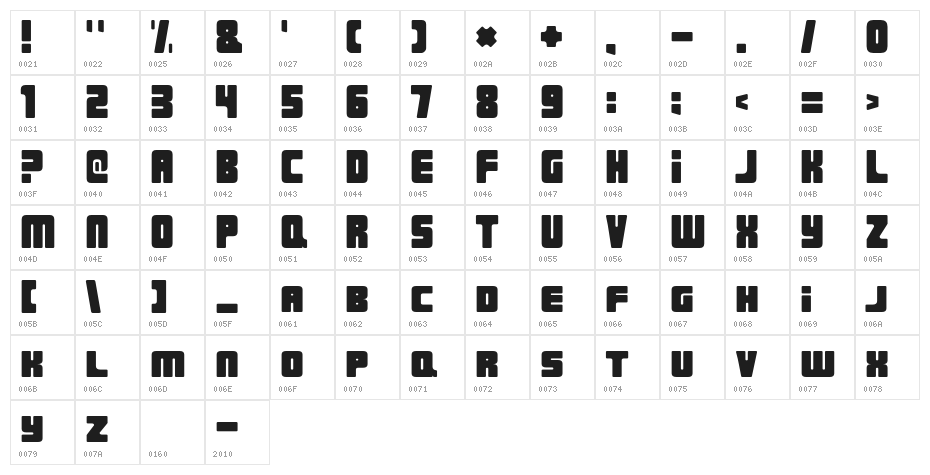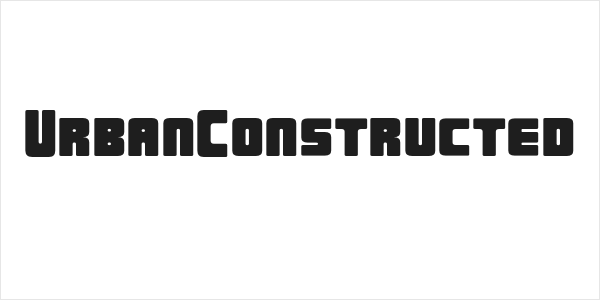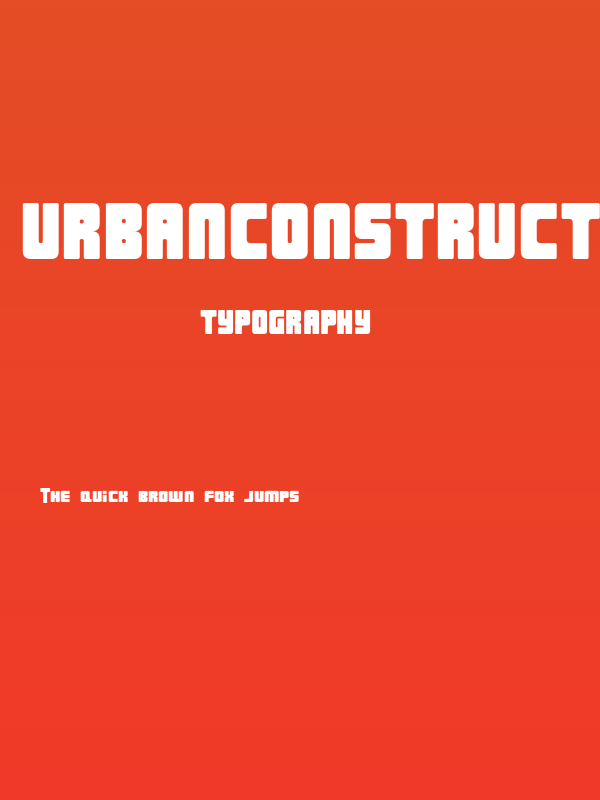
UrbanConstructed Font
| Vorgeschlagene Projekte | Ideal for urban-themed posters, industrial design projects, branding for construction companies, and any project requiring a strong, modern typeface. |
urban
constructed
is
font
nils
von
blanc
(www.nils-von-blanc.de).
nils
was
inspired
by
"nonstop"
jakob
fischer
pizzadude (http://www.pizzadude.dk).